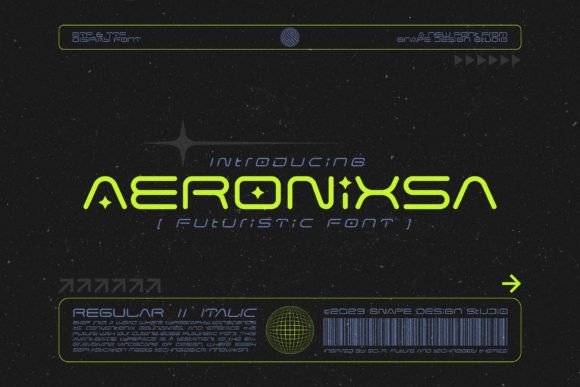
Prepare for the future of design with Aeronixsa, a display font family that launches your creative vision into the stratosphere of innovation. Inspired by sleek technology and the dynamic spirit of speed, this collection of fonts is crafted for the digital realm, transforming words into visual masterpieces that ignite imagination and captivate audiences.
Embrace the synergy between technology and aesthetics as Aeronixsa's sharp edges and streamlined curves create an unforgettable visual experience. Each character is meticulously designed to convey a sense of movement and energy, propelling your designs into the forefront of contemporary aesthetics. Whether you're a designer, artist, or creative entrepreneur, Aeronixsa is your gateway to a world of limitless expression.
Unleash your creativity with Aeronixsa's user-friendly customization options. Effortlessly tailor each font to perfectly match your artistic vision. Experiment with different weights, styles, and colors to create unique typographic compositions that resonate with your audience. Elevate your designs beyond the ordinary and establish a brand identity that radiates innovation and originality.
Aeronixsa is not just a collection of fonts; it's a passport to the future of design. Suitable for websites, logos, posters, social media, and more, it's a versatile tool that empowers you to craft designs that speak to the hearts of your audience. Join the revolution and redefine the boundaries of creativity with Aeronixsa, where dynamism, innovation, and aesthetics converge.